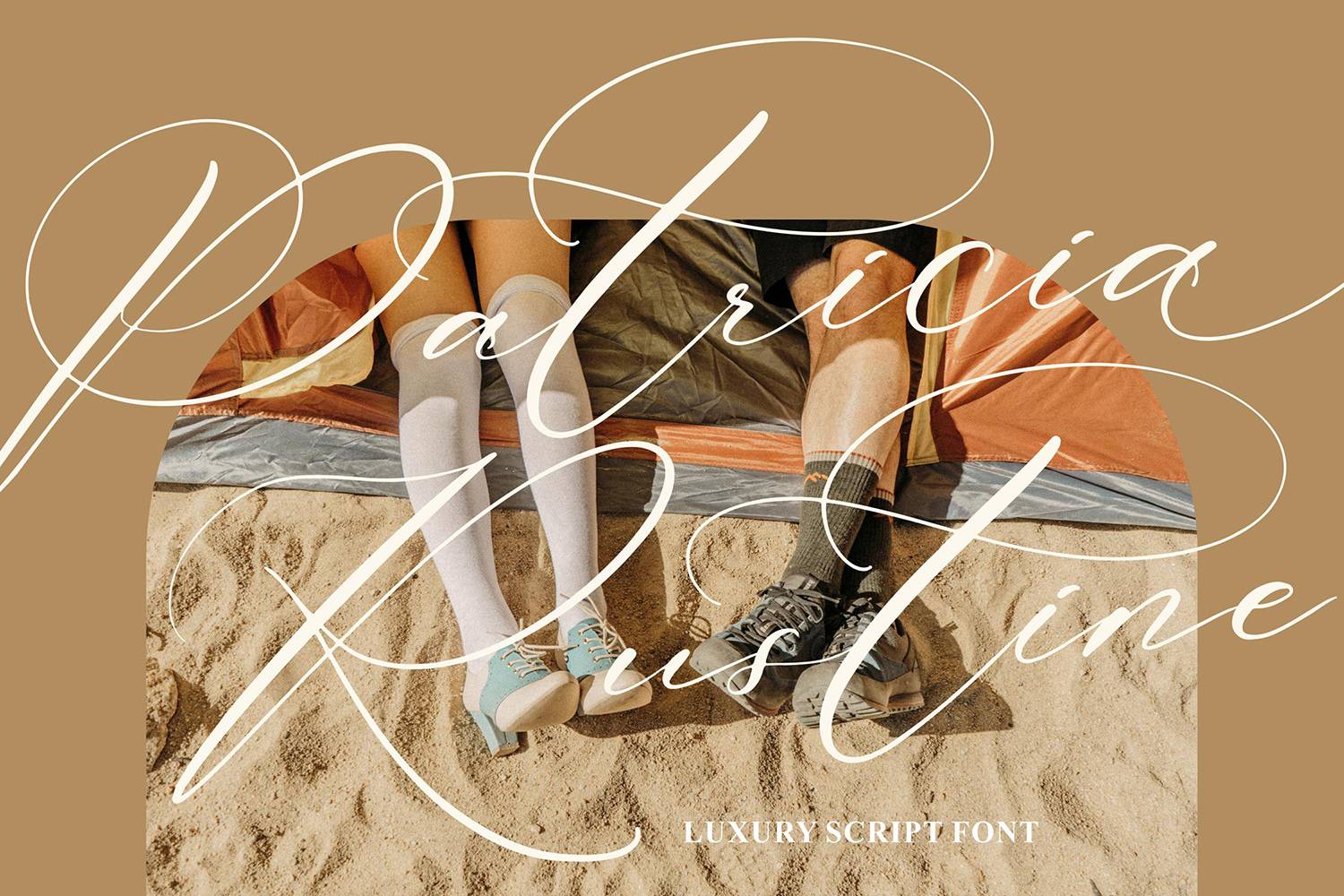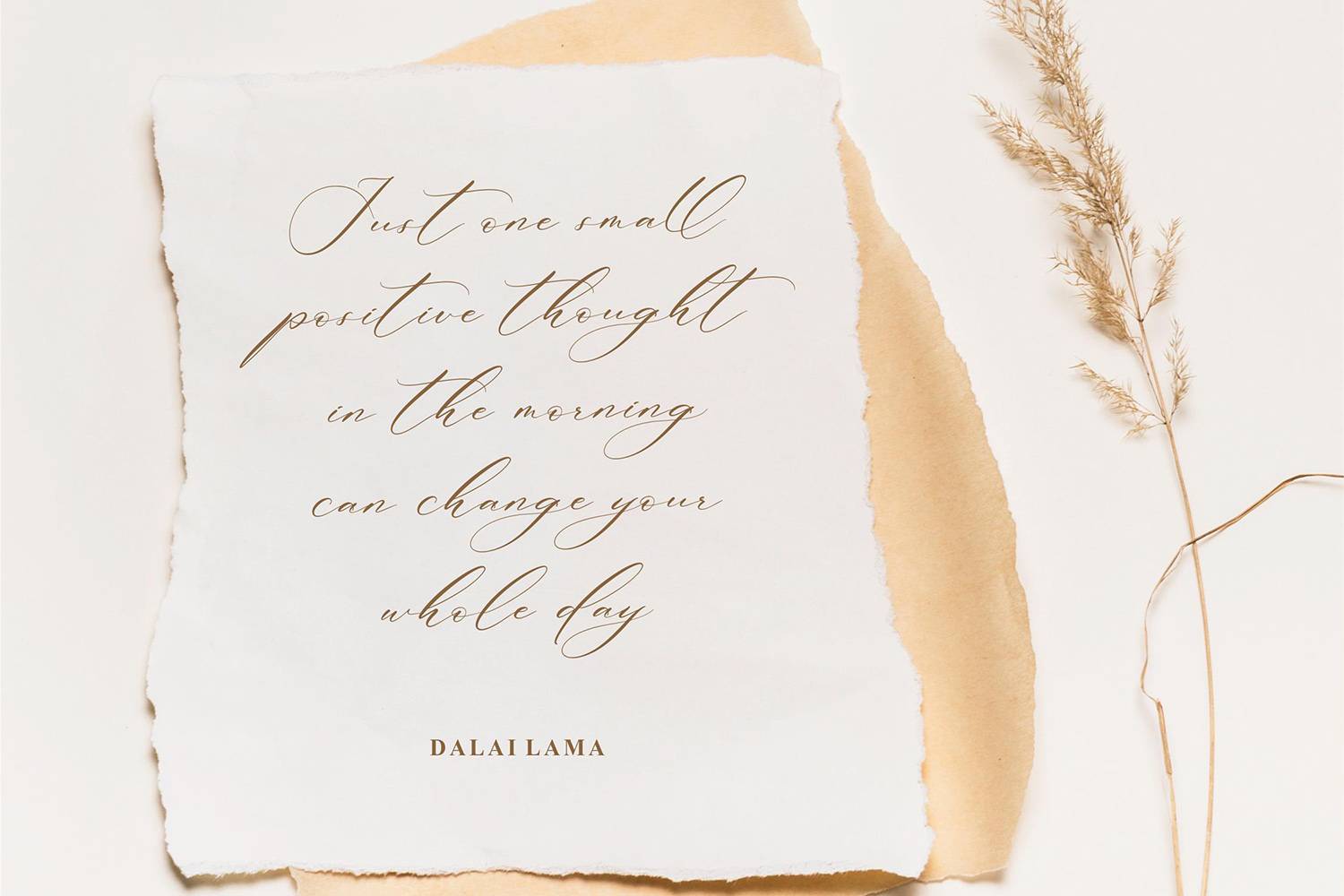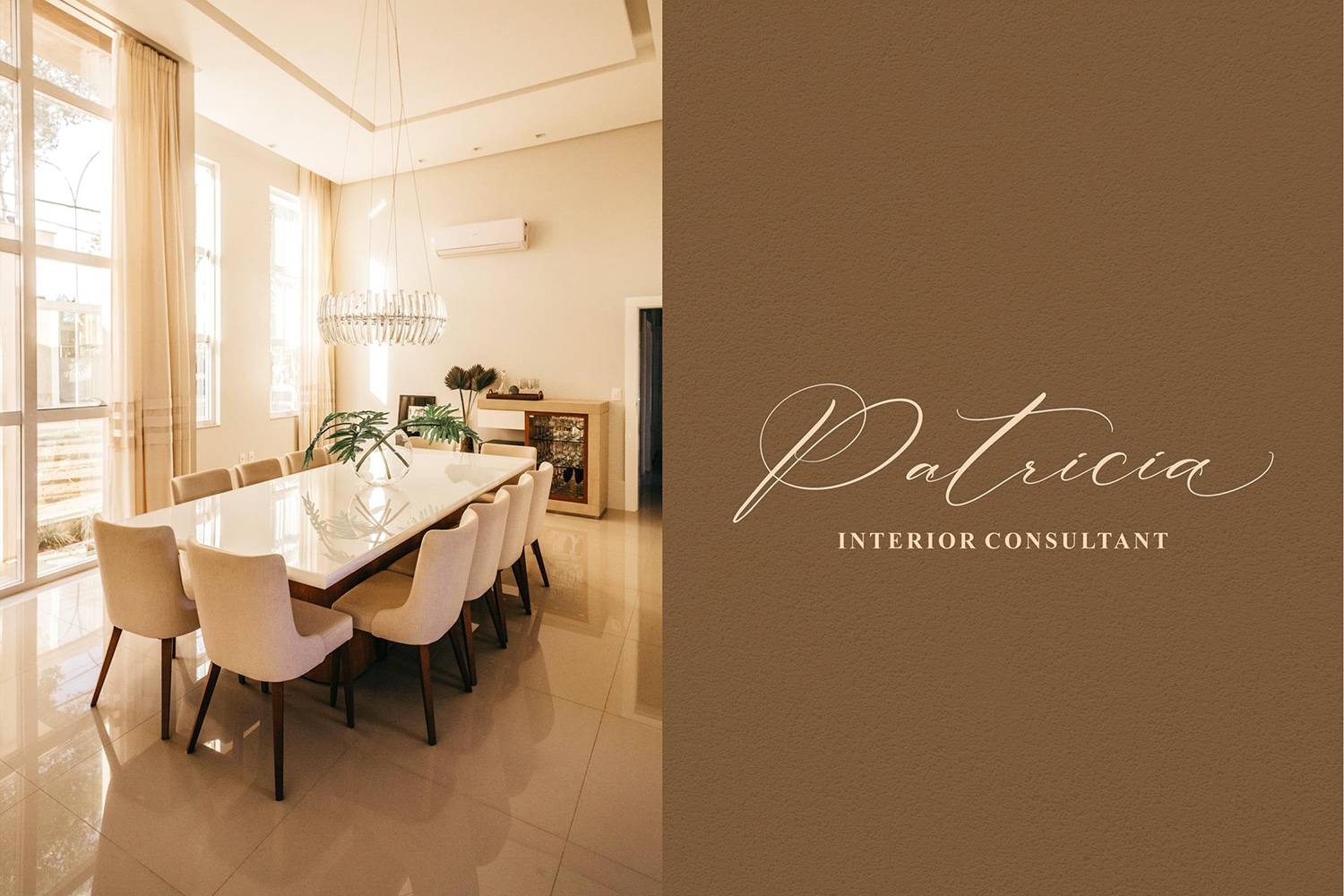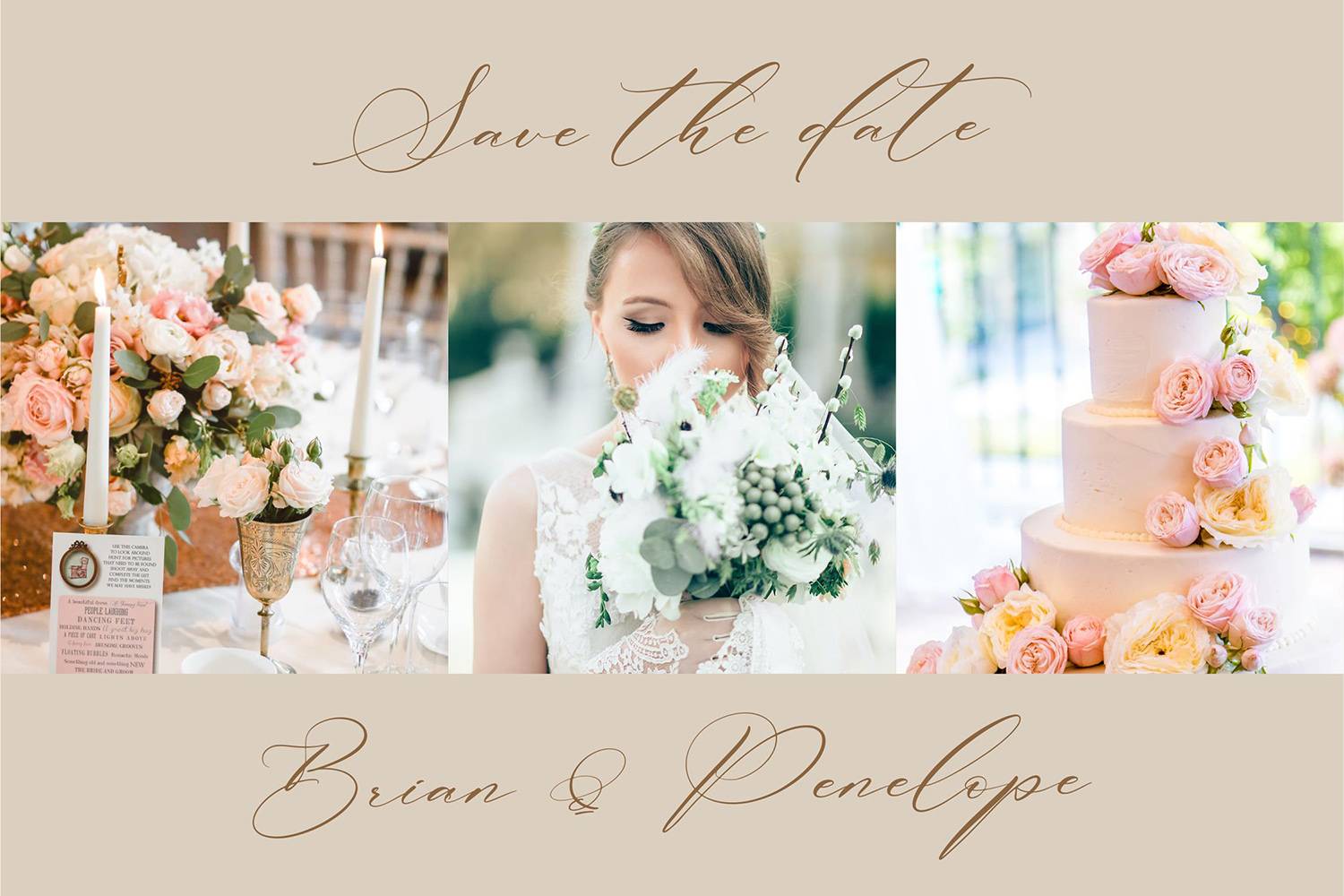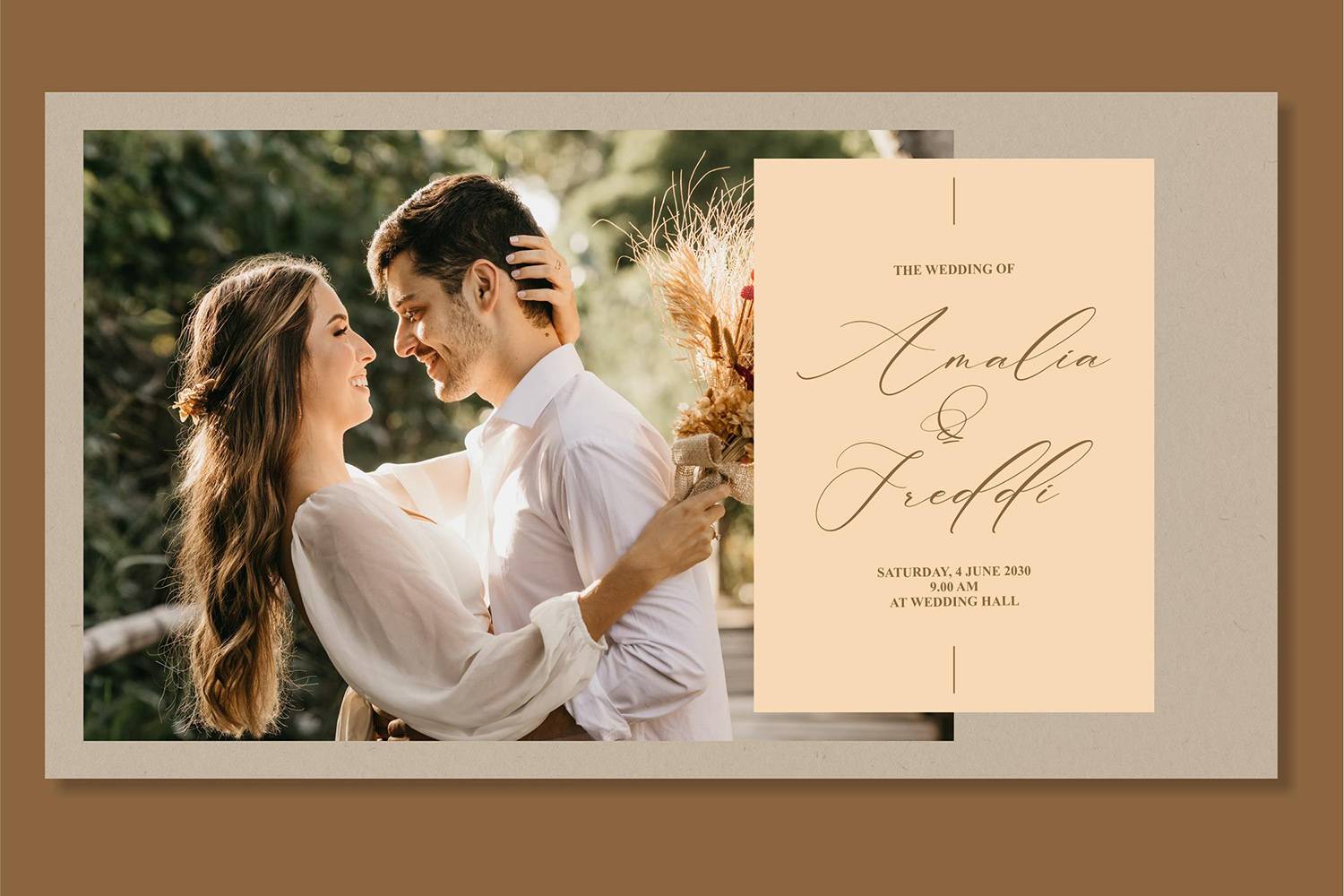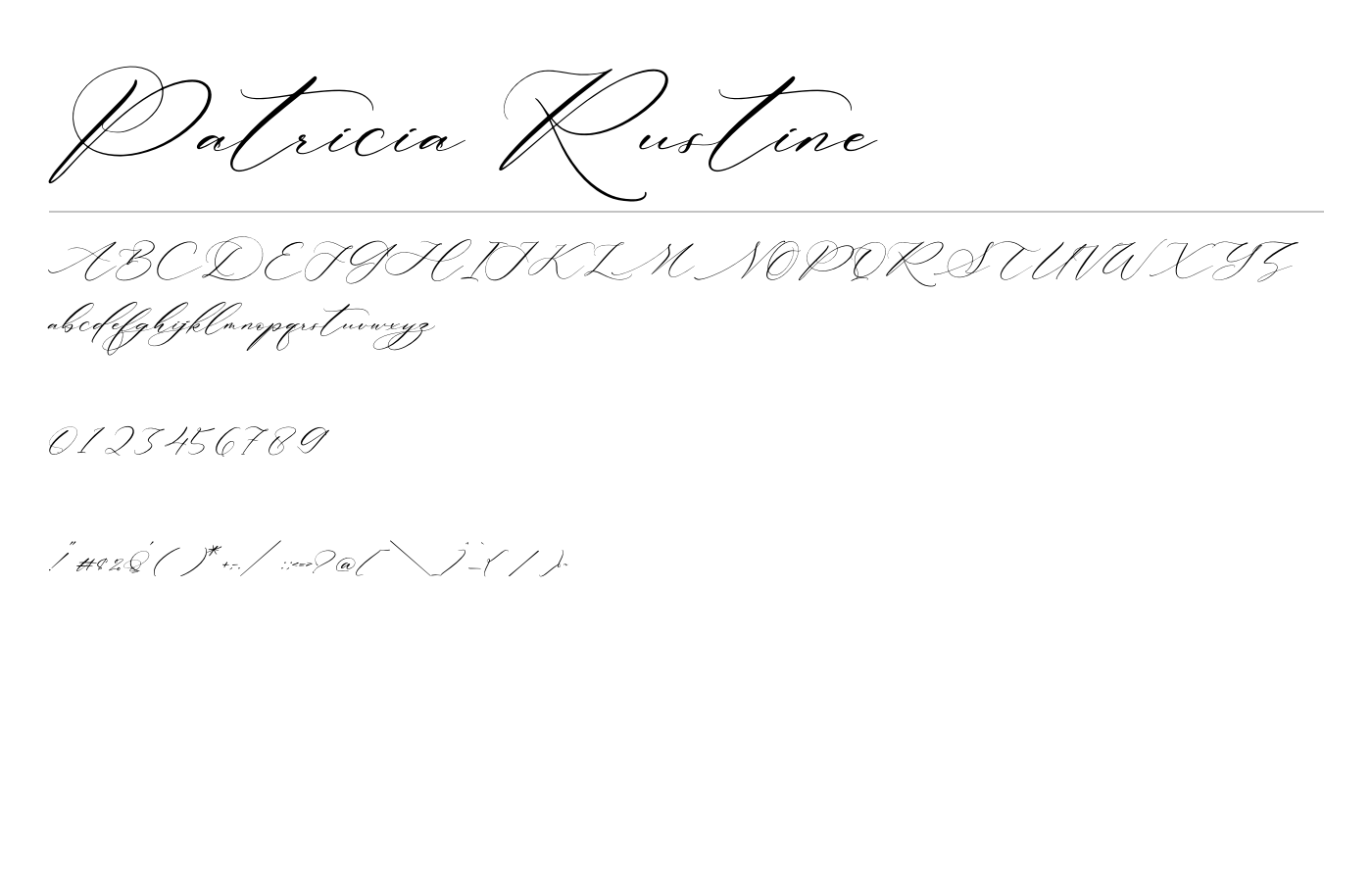
Patricia Rustine is an elegant, delicate script font featuring graceful, flowing strokes with high contrast and fine hairline details. Its sophisticated, calligraphic style with finely curved letterforms and airy spacing makes it ideal for luxury branding, wedding invitations, and refined editorial projects. This font’s light, ornamental character conveys a sense of classic beauty and romantic charm, perfect for designs seeking a stylish, handwritten touch.
Patricia Rustine Font
About Patricia Rustine Font